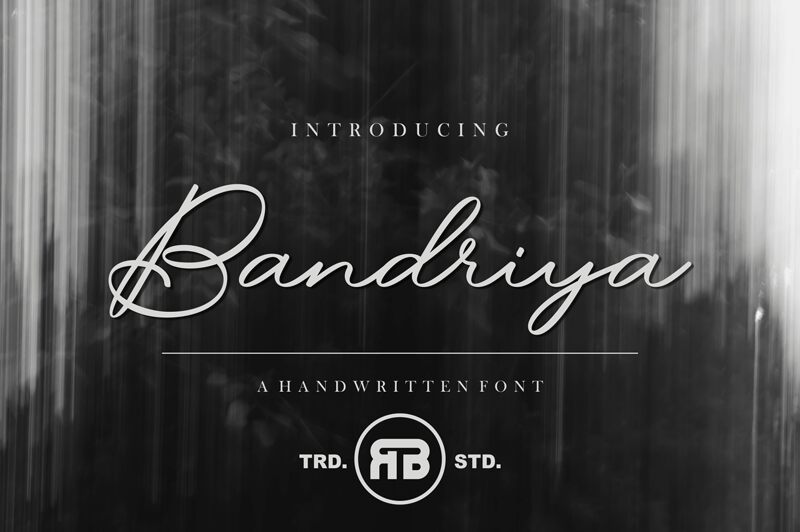
Bandriya, crafted by RGB Studio, is the epitome of elegance in the realm of handwritten fonts. With its smooth and authentic strokes, this font exudes a natural charm that captures the essence of personal touch. Its graceful lines and delicate form make it an ideal choice for projects that require a sophisticated and intimate feel.
This font shines in applications where finesse is paramount. Imagine Bandriya lending its refined elegance to wedding invitations or bringing a heartfelt warmth to romantic book covers. Its classy demeanor is perfect for upscale packaging and evocative album artwork. For those special moments that call for a handwritten note or quote, Bandriya adds an unforgettable personal flourish to greeting cards. In the digital space, it stands out in unique social media posts that aim to connect with audiences on a more personal level.
Bandriya